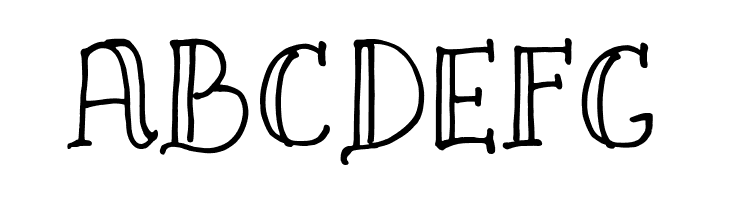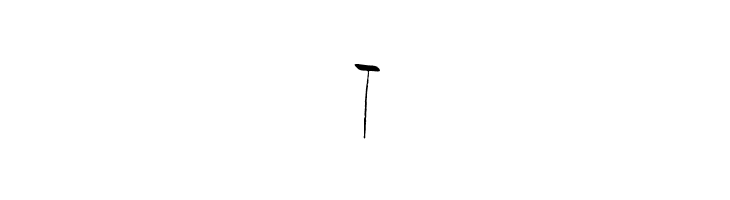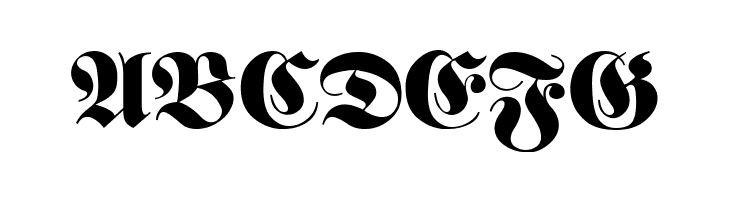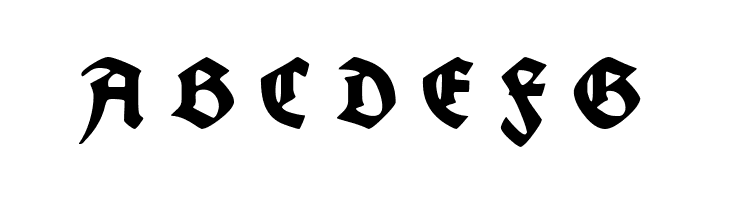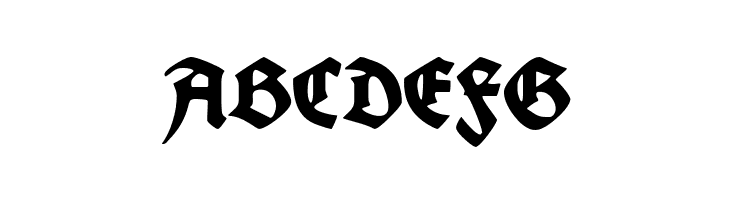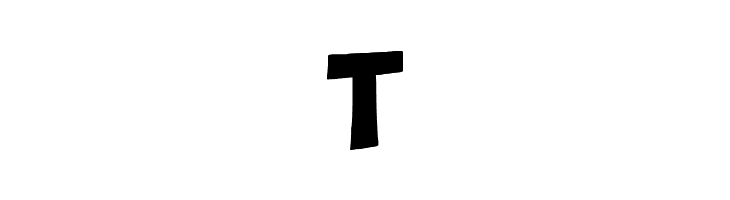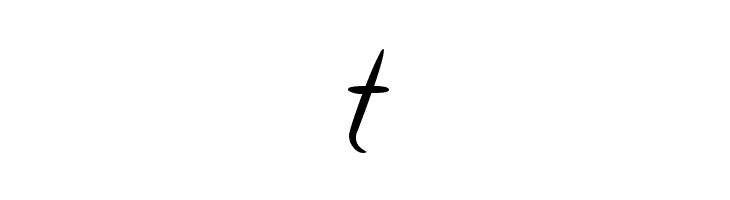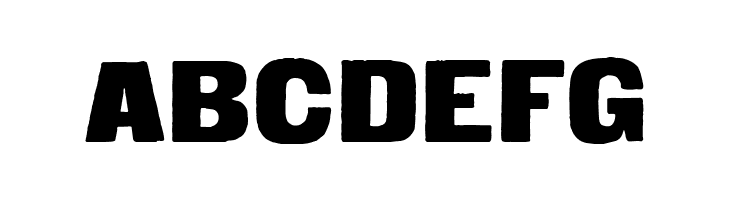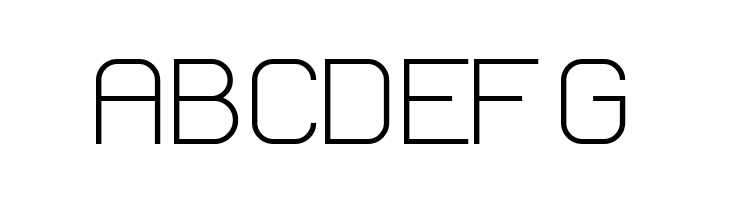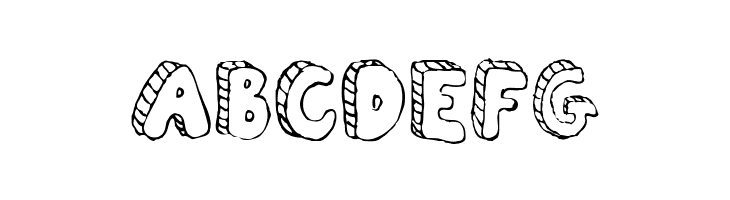
Bold, outlined font with a three-dimensional effect.
A bold, playful font with thick, uneven strokes and a hand-drawn feel.
A bold, textured font with a hand-crafted, artistic style.
A playful, hand-drawn font with bold, uneven strokes and a whimsical feel.
A dynamic, expressive handwritten font with fluid, irregular strokes.
A bold, hand-drawn font with a playful and sketch-like style.
A decorative and artistic font with bold strokes and whimsical flourishes.
A bold serif font with a shadow effect, offering a vintage and elegant style.
A bold, high-contrast typeface with dramatic strokes and a commanding presence.
A bold, high-contrast serif font with sharp serifs and a commanding presence.
A bold, hollow serif font with classic and modern elements.
A traditional blackletter font with intricate, ornate design and gothic elegance.
A bold and intricate Blackletter font with a traditional Gothic style.
A bold, blackletter font with sharp, angular lines and ornate detailing.
A bold, blackletter font with intricate details and a historical feel.
A bold, dramatic blackletter style with sharp, angular strokes.
A bold Blackletter typeface with ornate, dramatic flourishes.
A bold, ornate blackletter font with Gothic flourishes and sharp angles.
A bold, heavy font with uniform thickness and strong visual impact.
A bold, ornate blackletter font with intricate details and historical elegance.
A bold, decorative Blackletter font with intricate details and historical elegance.
A bold, ornate Blackletter font with intricate details and a Gothic influence.
A bold, ornate blackletter typeface with a Gothic, medieval style.
A bold, decorative font with a vintage Western style.
A geometric, futuristic font with linear and angular design.
A bold, puzzle-inspired font with interlocking segments and a playful aesthetic.
A bold, pixelated font with a jigsaw puzzle design.
A playful, dotted decorative font with a whimsical style.
A playful, handwritten font with whimsical curves and lively strokes.